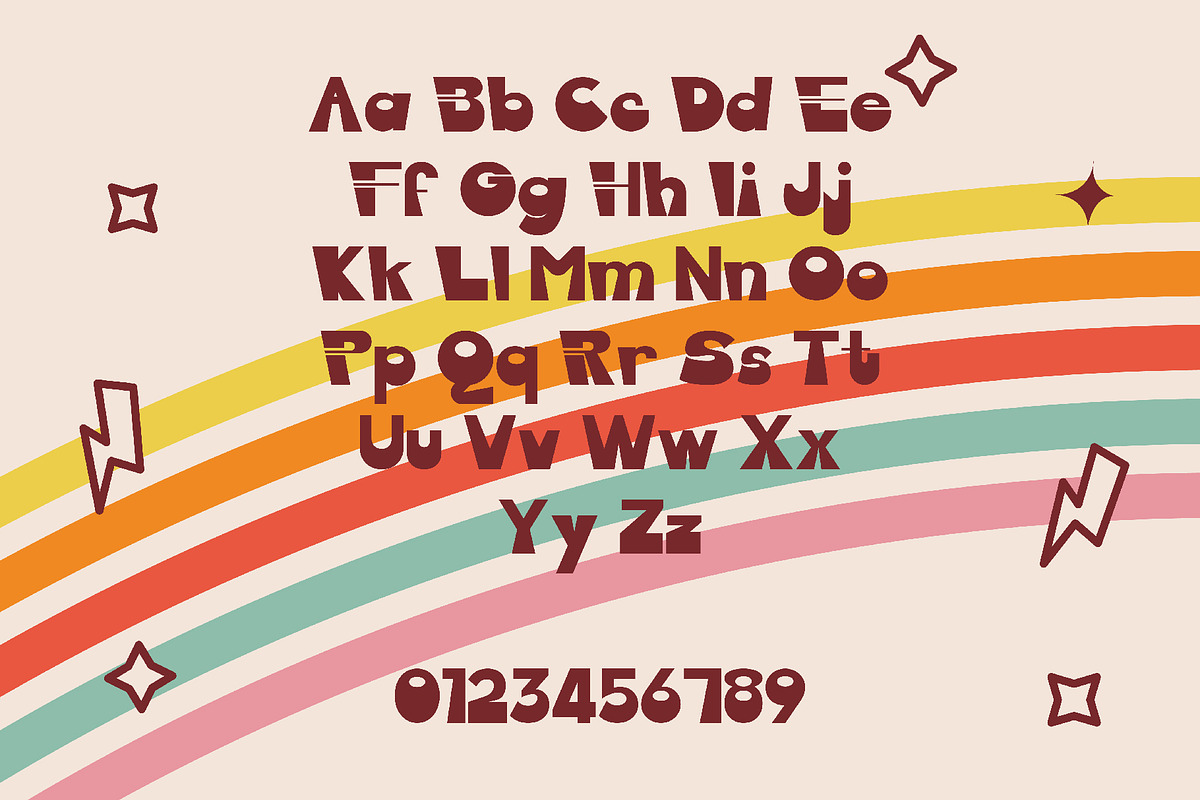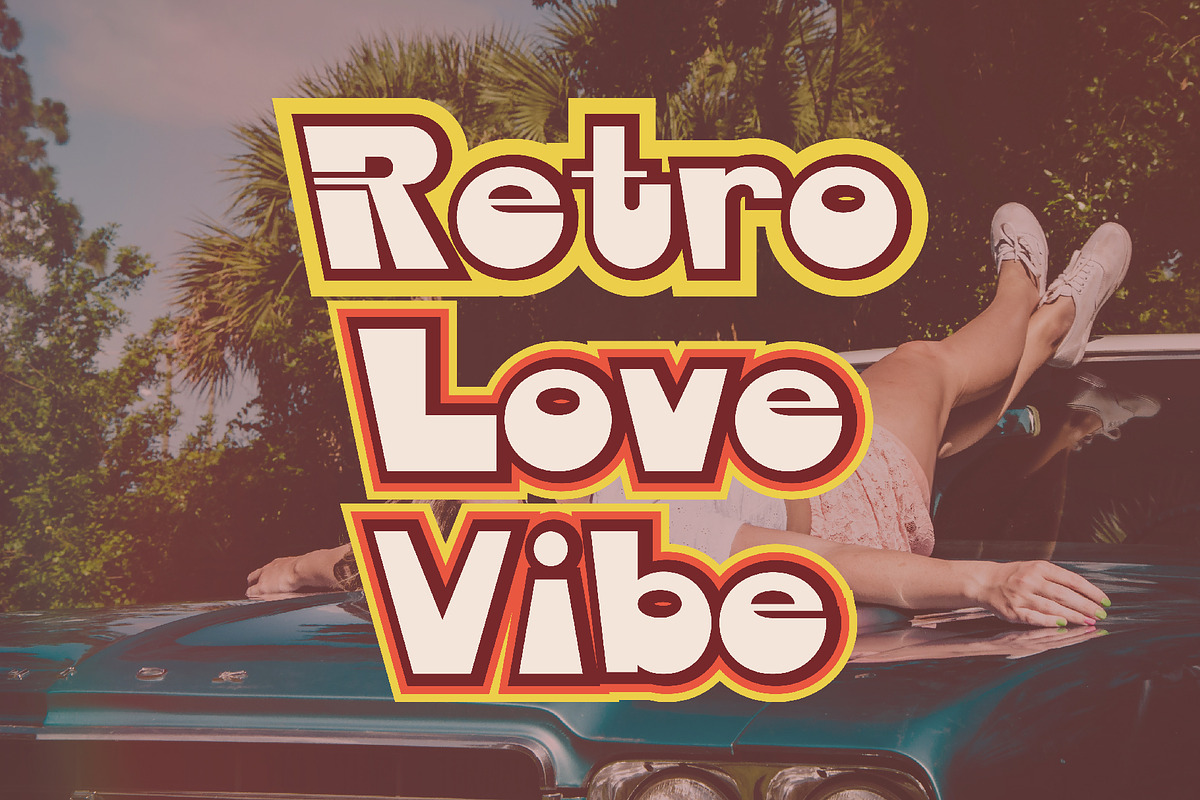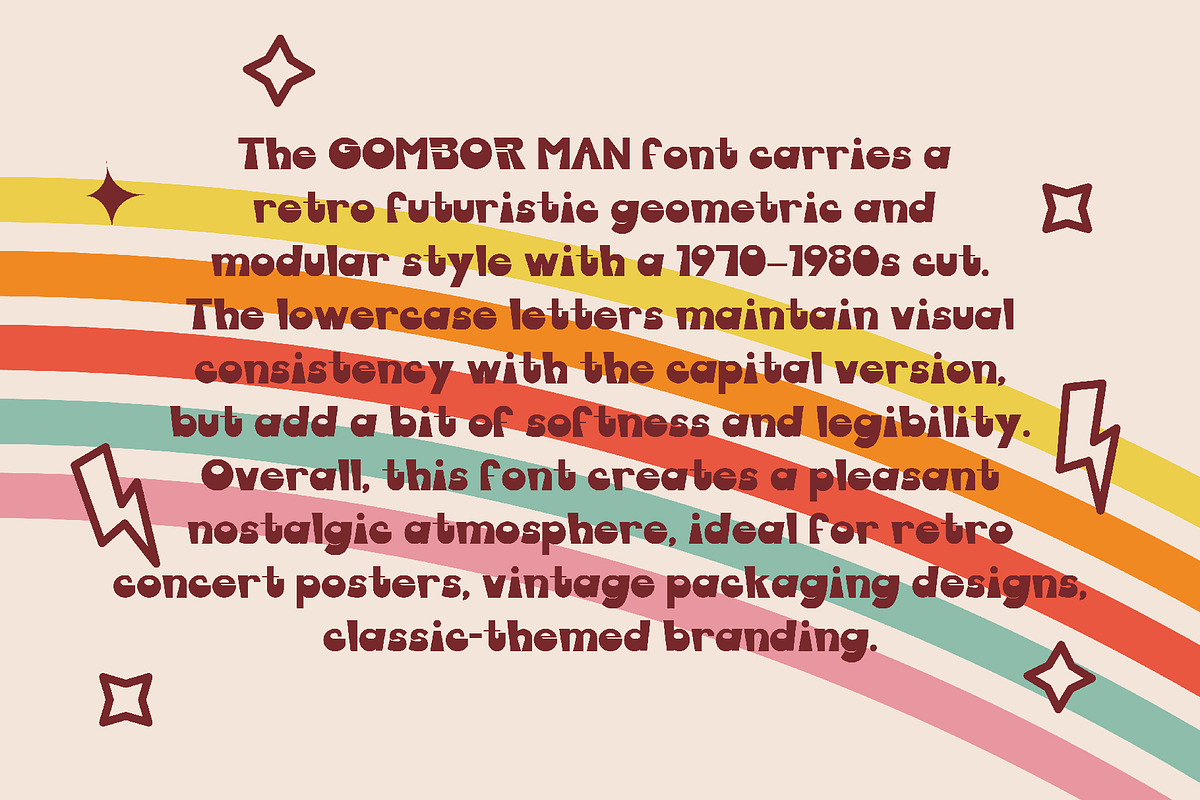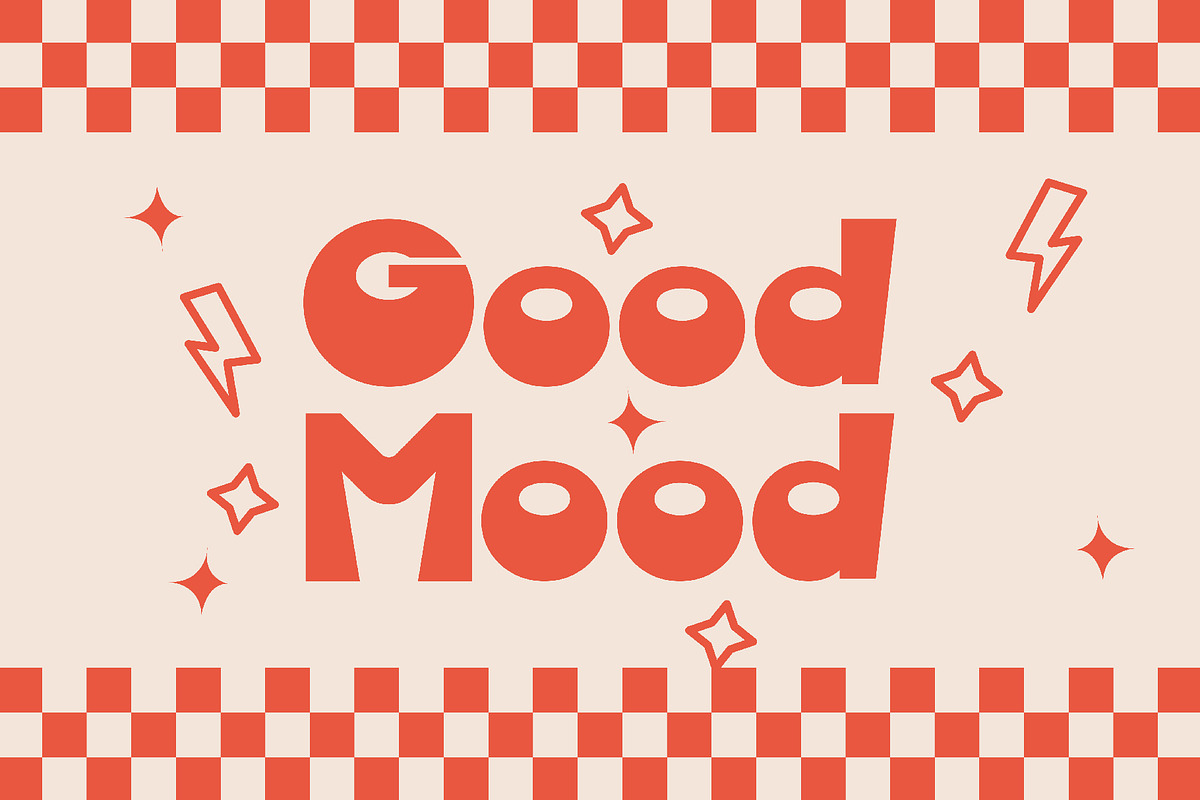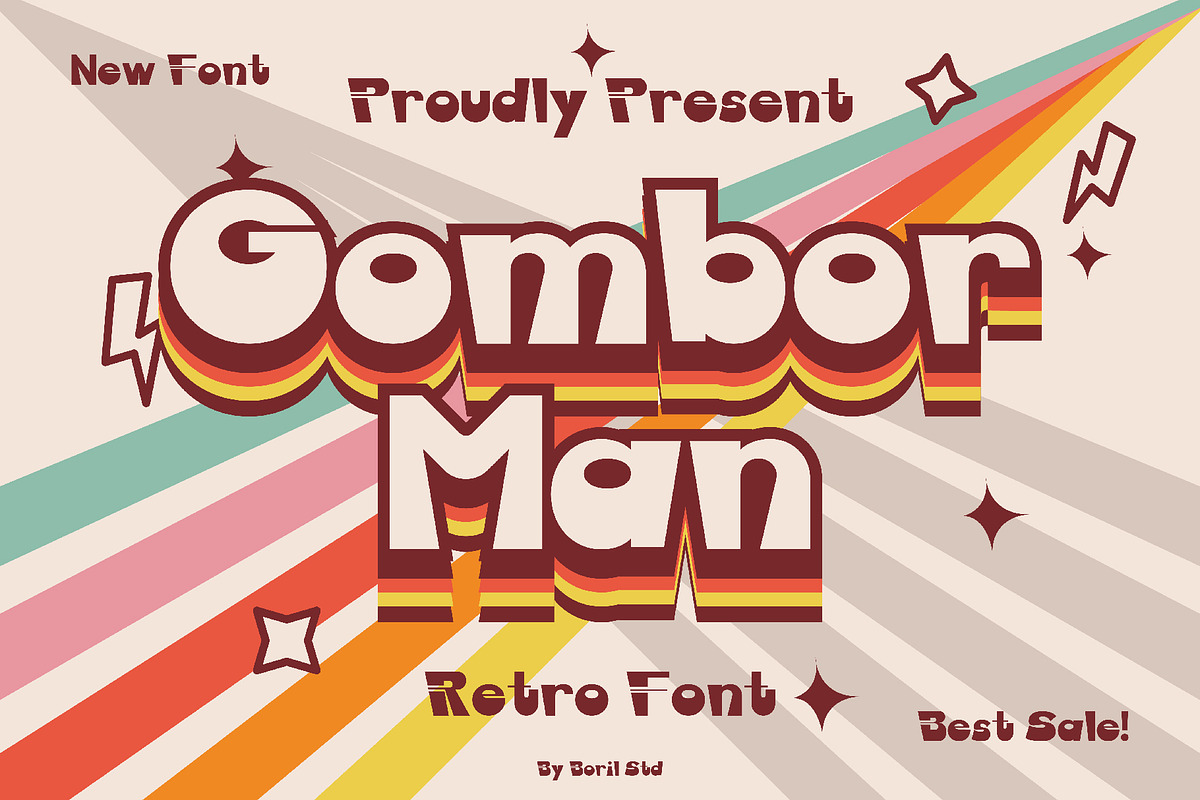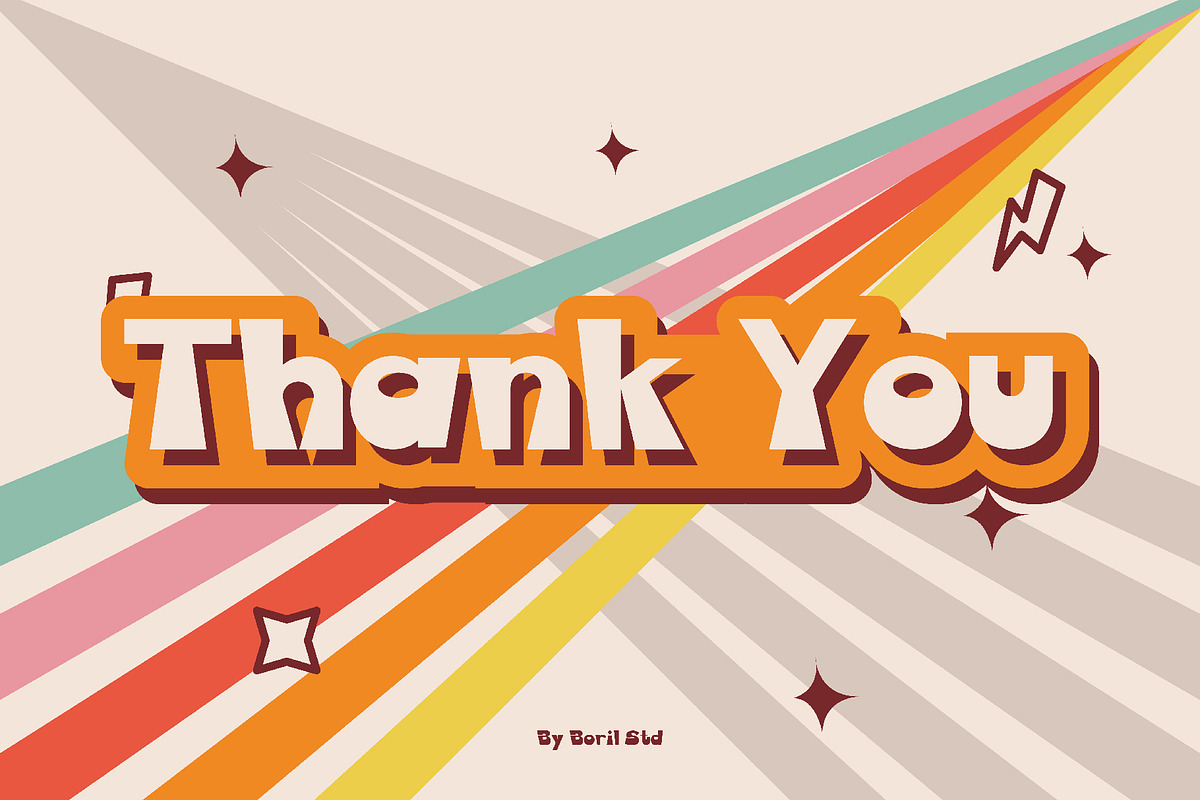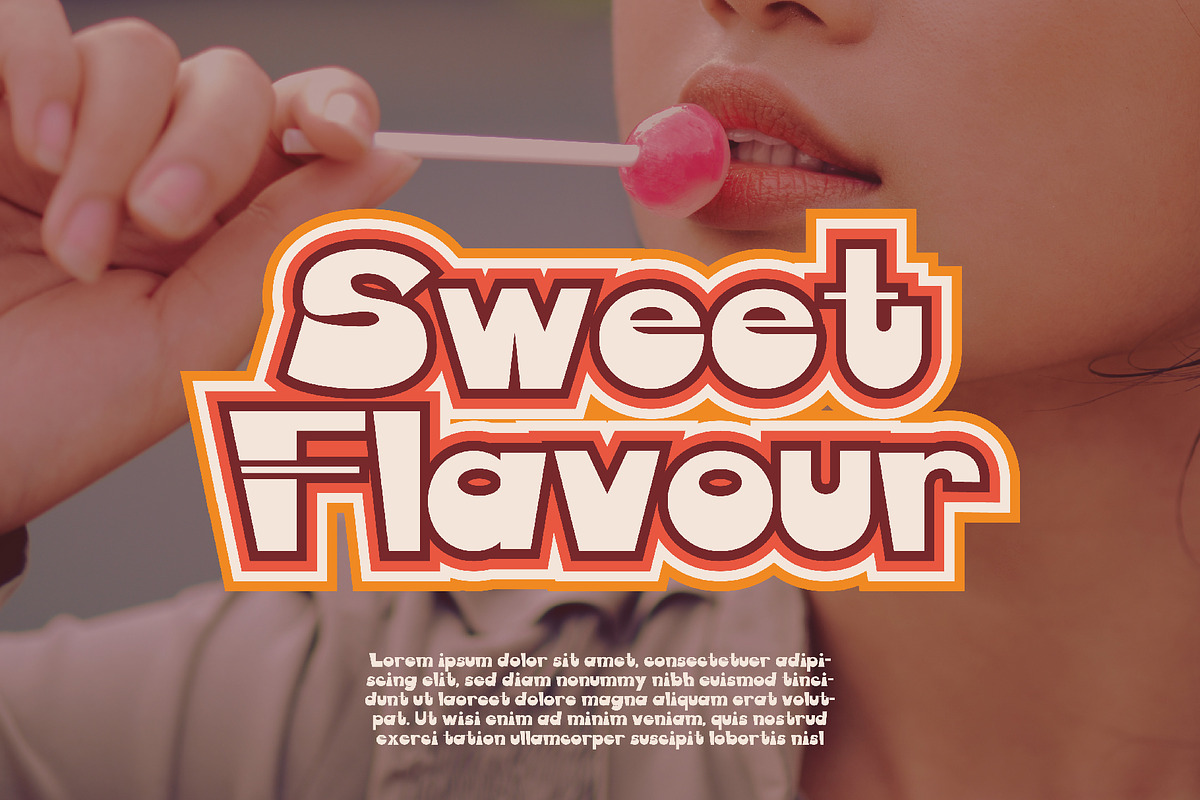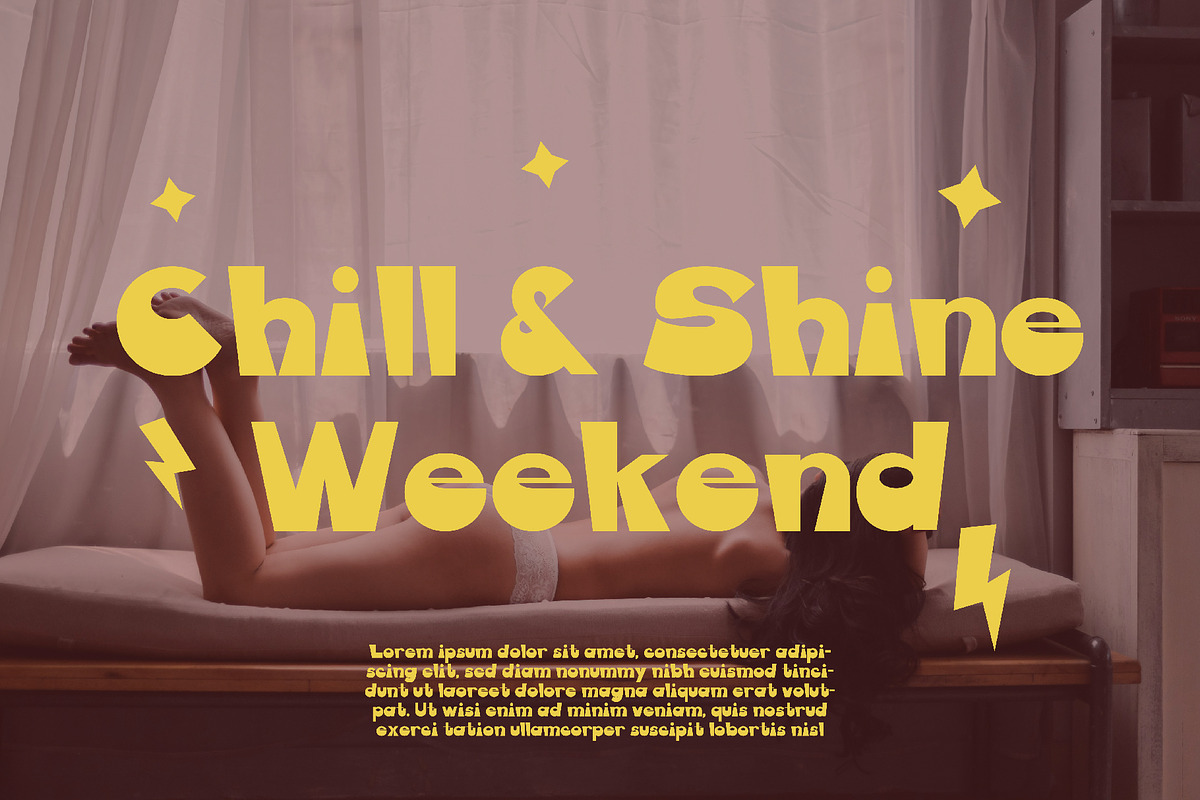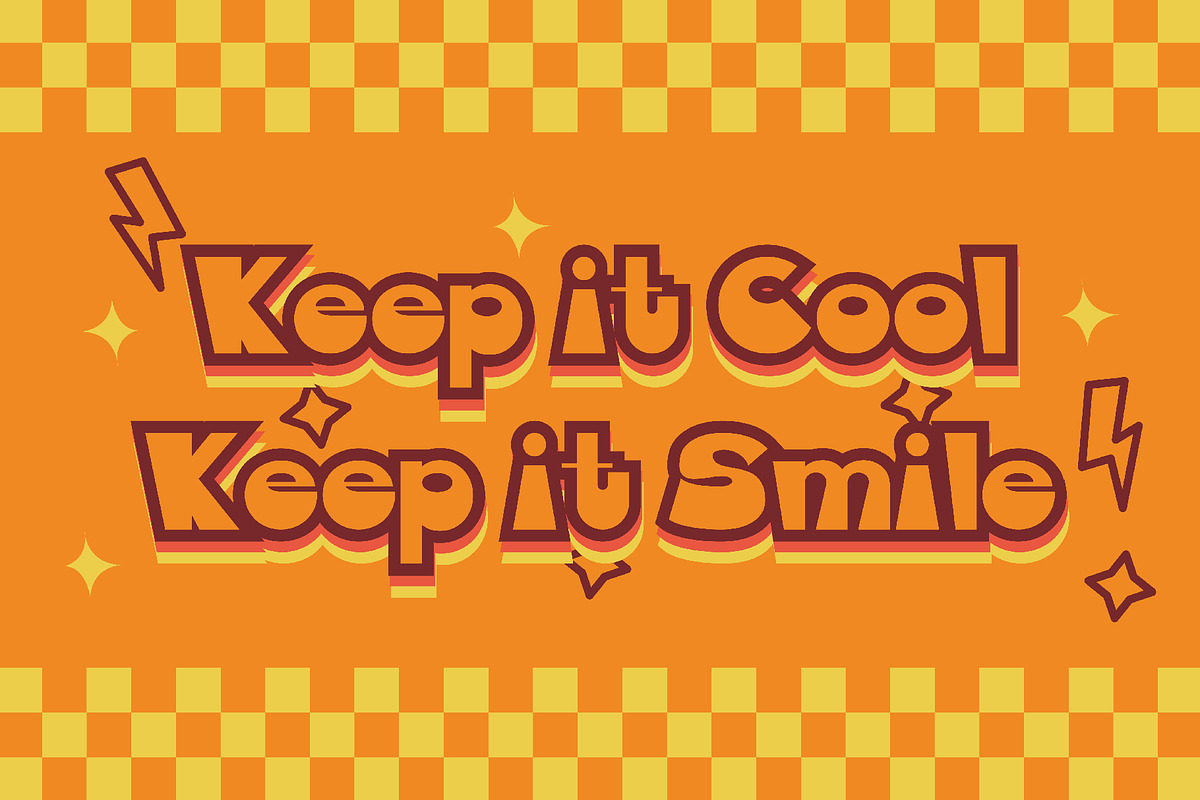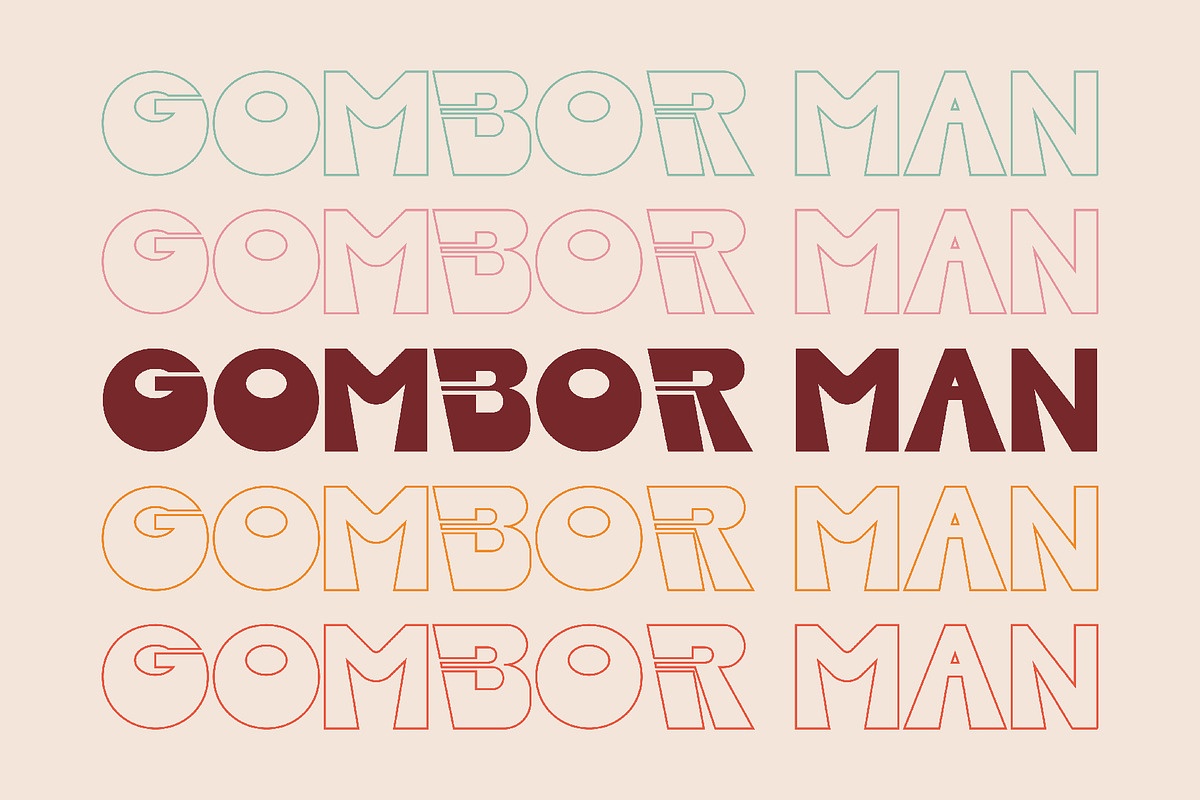
Gombor Man - Retro Sans
The GOMBOR MAN font carries a retro futuristic geometric and modular style with a 1970–1980s cut. The lowercase letters maintain visual consistency with the capital version, but add a bit of softness and legibility. Overall, this font creates a pleasant nostalgic atmosphere, ideal for retro concert posters, vintage packaging designs, classic-themed branding.